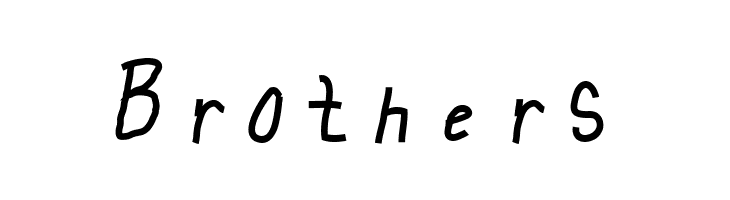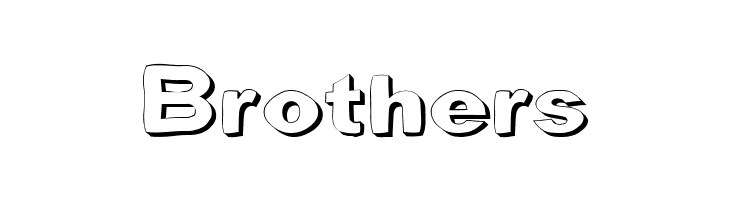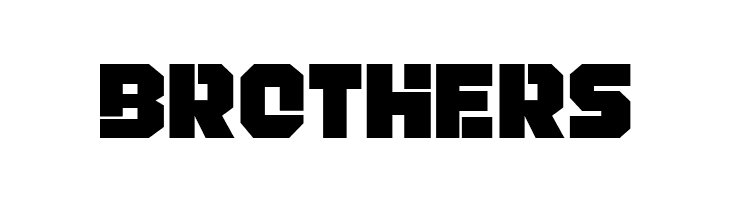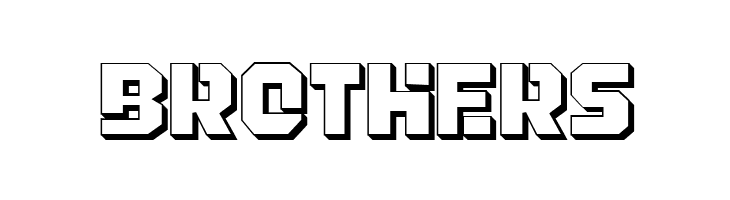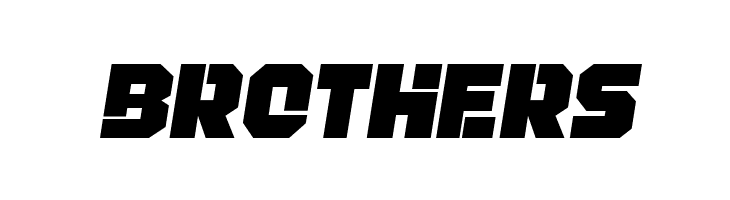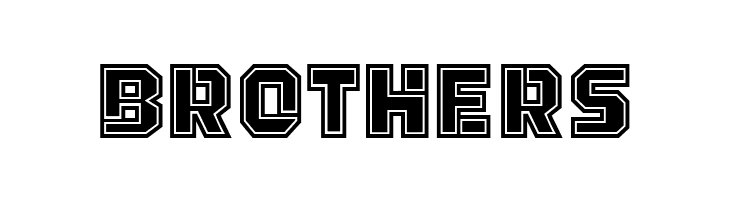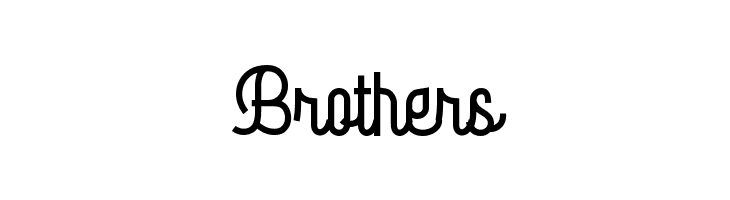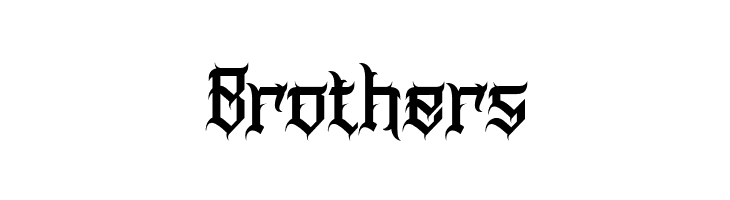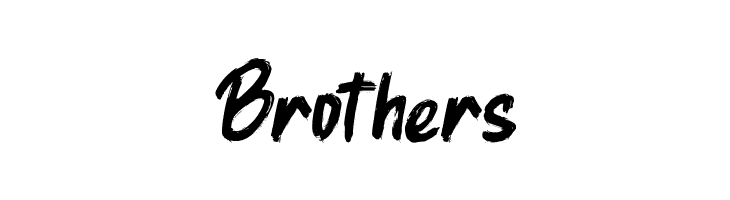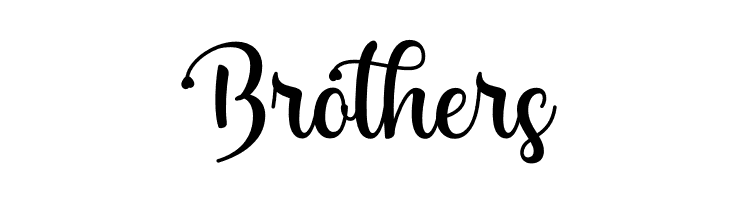
A bold, expressive handwritten font with dynamic curves and a brush-like texture.
Whimsical cartoon font with commerce-themed illustrations.
An ornate and decorative font with Gothic influences, featuring elaborate letterforms.
A bold, playful font with a three-dimensional shadow effect.
A bold, decorative font with an outline effect and hand-drawn style.
An ornate and decorative font with intricate curves and flourishes.
A bold, geometric font with a modern and structured design.
A playful, hand-drawn font with bold, wavy outlines and a cartoonish style.
A bold, blackletter font with sharp, angular lines and high contrast.
A playful, informal handwritten font with smooth, rounded edges.
A playful, star-patterned decorative font with bold, rounded characters.
A playful, hand-drawn font with a friendly and informal style.
A playful, hand-drawn font with dynamic and irregular letterforms.
A bold, angular font with a geometric and modern style.
A playful and whimsical script font with elegant curves and decorative swashes.
A playful script font with decorative swashes and a handwritten feel.
A modern-vintage blend with elegant curves and distinct letterforms.
A bold, italic font with a dynamic and energetic style.
A bold, impactful font with thick strokes and a modern vintage flair.
A playful, handwritten font with dynamic, uneven strokes and a casual style.
A bold, energetic script font with a hand-painted, dynamic style.
A bold, geometric font with blocky, angular characters for modern designs.
A bold, dynamic italic font with sharp angles and strong presence.
A bold, 3D geometric font with a futuristic and industrial style.
A bold, geometric font with a double-line effect, perfect for standout designs.
A bold, angular, and italicized font with a modern and dynamic style.
A bold, geometric font with an industrial and modern style.
A fluid and expressive handwritten cursive font.
A playful, bold, and hand-drawn style font with rounded edges.
A dot-matrix style font with a retro digital display aesthetic.
A bold, striped font with a modern, tech-inspired aesthetic.